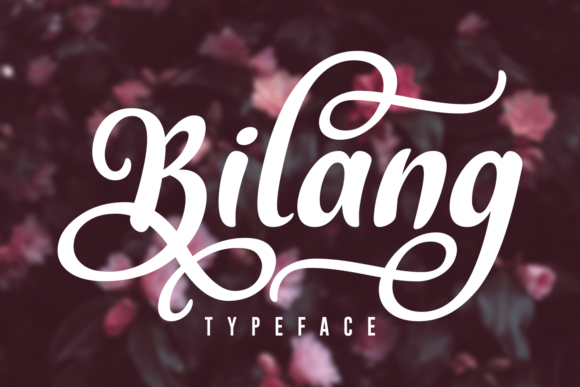
The Perfect Blend of Elegance and Masculinity: Introducing Bilang Font
Have you ever been in the midst of a creative project, pouring your heart and soul into it, and suddenly, you stumble upon the perfect font? That’s exactly what happened to many designers when they discovered the Bilang Font. Its bold script style is a game-changer, adding a touch of sophistication to any design project.
Bilang Font is designed to provide a unique balance between elegance and masculinity, making it an ideal choice for a wide range of applications, from branding to publishing. Its beautiful swashes and swooshes give it an unmistakable charm that sets it apart from other fonts. Whether you’re a seasoned designer or just starting out, Bilang Font is sure to be a valuable addition to your toolkit.
Bilang Font Key Features
- Font Family: Bilang is a typeface designed for efficient and legible reading, with a focus on Filipino culture.
- Character Count: Bilang Font contains a comprehensive set of characters, including uppercase and lowercase letters, numerals, and a range of diacritical marks.
- Unique Characteristics: Bilang Font features a unique blend of modern and traditional design elements, making it an attractive choice for projects requiring a distinctive Filipino flair.
- Language Support: Bilang Font supports various languages, including Filipino, English, and other languages that use the Latin alphabet, as well as some languages that use non-Latin scripts.
Bilang Font Review
Bilang Font is an interesting choice for those looking for a unique, handwritten font. ✨ Its irregularities and quirks give it a sense of personality, making it perfect for creative projects or branding that wants to stand out.
One of the things that works well in Bilang Font is its ability to convey a sense of informality and approachability. ✨ It’s great for headings, titles, or even body text in a more casual setting. The font also has a wide range of languages supported, making it a great option for international projects.
- ⚠️ Bilang Font may not be the best choice for formal or professional projects, as its irregularities can make it difficult to read in certain contexts.
- ⚠️ The font may not be suitable for small text sizes, as the irregularities can make it harder to decipher the characters.
Overall, Bilang Font is a great choice for creative projects or branding that wants to stand out. While it may have some limitations, its unique personality and wide language support make it a great option for designers looking for something different.
Bilang Font is perfect for creating eye-catching headings, titles, and labels in your designs. To get the most out of it, experiment with different font sizes, colors, and styles to create visual interest.
Use Bilang Font in conjunction with other creative fonts to add depth and personality to your designs.
Alternatives to Bilang Font
Titillium Web
Titillium Web is a sans-serif font designed by Colophon Foundry. It is a modern, clean, and highly legible font suitable for body text, headings, and titles. Titillium Web is an excellent choice for digital products, websites, and mobile applications.
Compared to Bilang Font, Titillium Web has a more modern and minimalist design, making it a great alternative for designers who want a clean and contemporary look. However, Titillium Web lacks the playful and handwritten feel of Bilang Font.
Montserrat is a sans-serif font designed by Julieta Ulanovsky. It is a geometric, urban font inspired by the streets of Montserrat, Argentina. Montserrat is ideal for titles, headings, and body text in digital products, websites, and print materials.
Compared to Bilang Font, Montserrat has a more geometric and structured design, making it a great alternative for designers who want a strong and modern look. However, Montserrat lacks the playful and handwritten feel of Bilang Font.